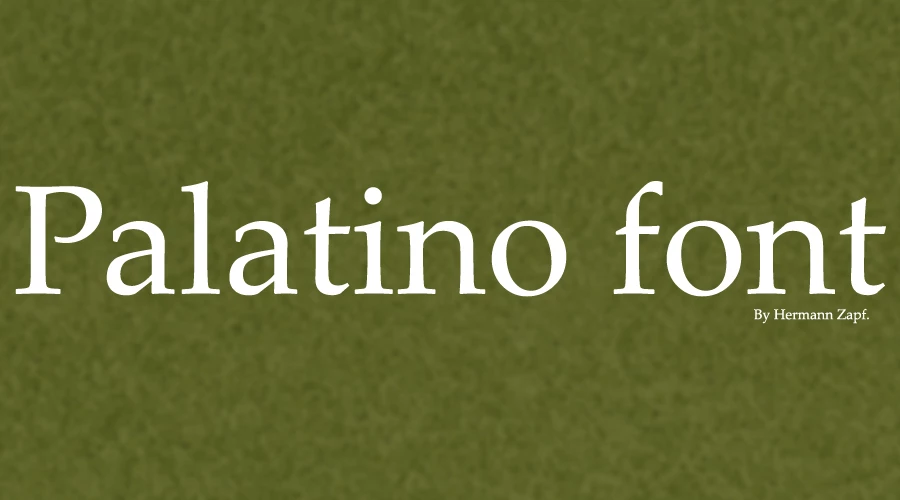
About The Font
Palatino font is a very popular serif font designed by Hermann Zapf in 1949 and published by Stempel. Palatino was named after Giambattista Palatino, a 16th-century Italian master of calligraphy, and was designed to reflect the humanist typefaces of the Italian Renaissance, with a calligraphic grace. The typeface was originally intended for use in headings, but it quickly became popular for body text as well. It remains one of the most widely used serif typefaces today and is known for its legibility and readability
Palatino font has glamorous characteristics just for its typeface and heavier weight. Its typeface has a cutting-edge calligraphy style which makes Palatino unique and gorgeous. Its design reflects Zapf’s expertise as a calligrapher and it features a unique ‘palm Y’ style capital Y, inspired by the Greek letter upsilon. Palatino was intended for use in a trade or ‘jobbing’ use, such as headings, advertisements, and display printing. It was created with a solid, wide structure and wide apertures that could appear clearly on poor-quality paper.
Palatino font is mainly designed for advertising and display printing. For composing books advertising headlines, print invitations, or business cards, you can use Palatino. It is particularly known for its calligraphic grace and was originally intended for use in headings, but quickly became popular for body text as well.
Banner Designs, brochure layouts, posters, movie titles, and in many more workplaces, Palatino font is a trusted name. You can also use this font for developing websites or a game. Palatino font is very readable for its open counter. So, Palatino is useful for all workplaces.
DesignerHermann Zapf
ClassificationSerif
What type of font is Palatino?
Ans: Palatino is an old-style serif typeface font designed by Hermann Zapf.
Is there any font similar to the Palatino font in Google Fonts?
Ans: Playfair Display font is similar to the Palatino font in Google Fonts.